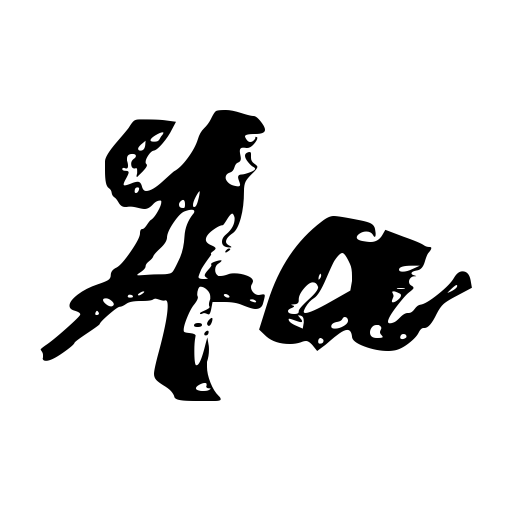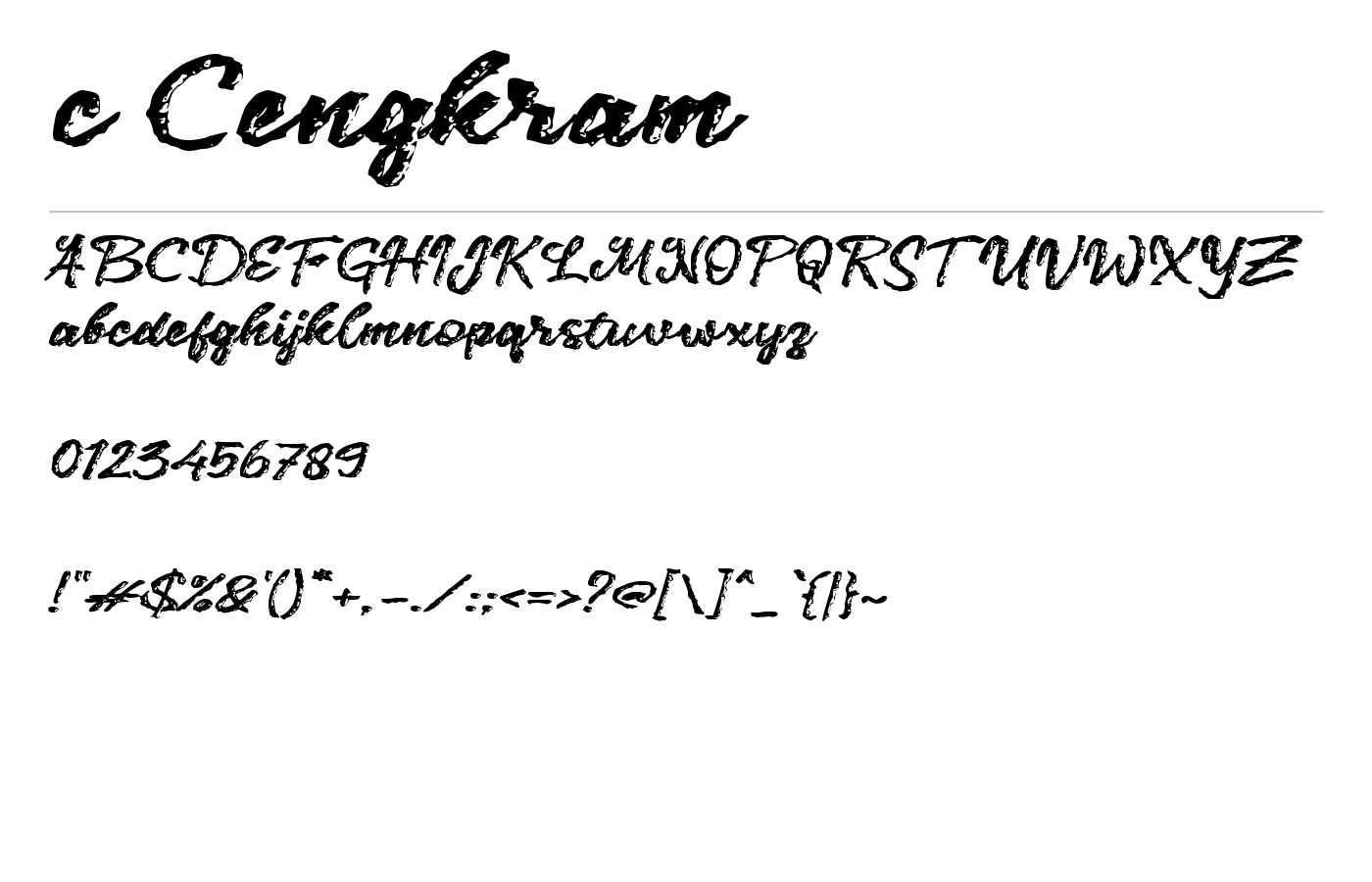
Cengkram is a bold, textured script font with a hand-painted feel that combines dynamic brush strokes and a slightly distressed, rough edge. Its lively and expressive style makes it ideal for creative, casual branding, posters, and display uses where a personal, artistic touch is desired. This font works best in headlines or logos looking to convey energy and handcrafted charm.
c Cengkram Font
About c Cengkram Font